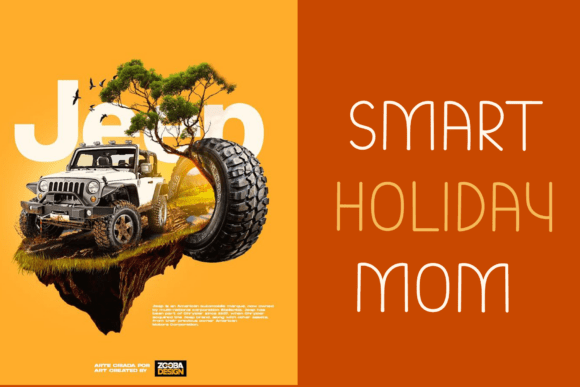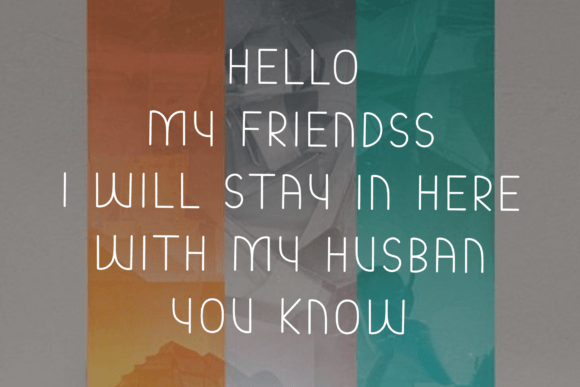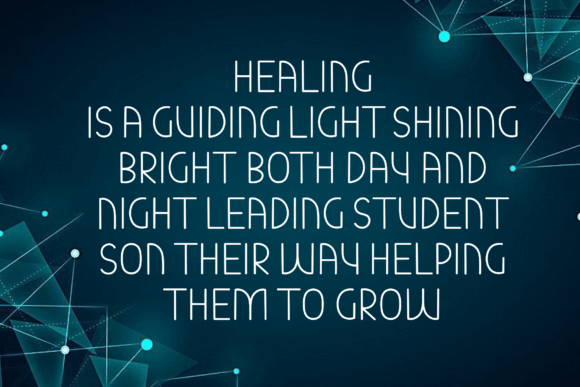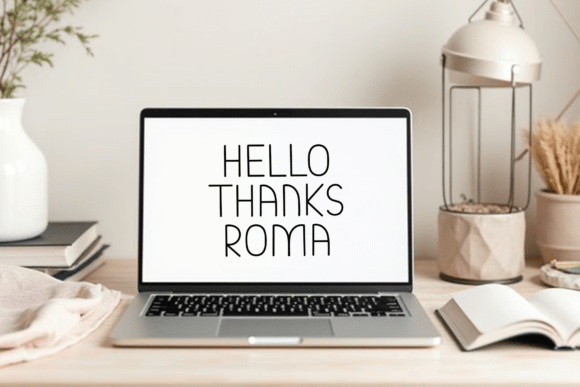
Introduction to Simple Create Font
Simple Create is a clean, monolinear display font that embodies minimalist modern design.
It features tall, uniform letterforms with a consistent stroke weight and perfectly rounded terminals, creating a light and airy aesthetic The characters are characterized by open counters and geometric balance, offering a sophisticated look while remaining highly approachable.